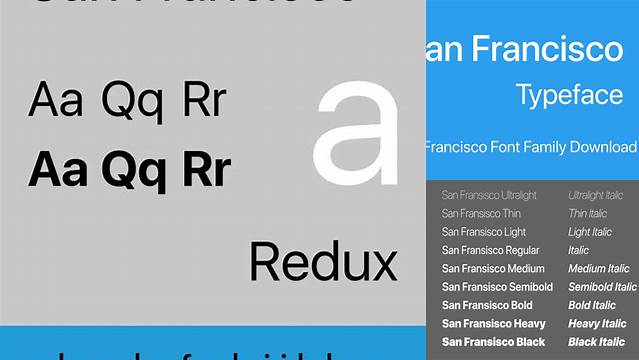
Best Free Fonts Similar To San Francisco
Are you a designer or a typography enthusiast looking for free fonts similar to San Francisco? You've come to the right place! The San Francisco font, known for its clean lines and excellent readability, has become a favorite in the design world. However, it's a system font by Apple, which means it's not freely available for all uses. But don't worry, guys! There are plenty of fantastic free alternatives out there that capture the essence of San Francisco. In this comprehensive guide, we'll dive deep into the best free fonts that offer a similar aesthetic, explore their characteristics, and discuss how to use them effectively in your projects. So, let’s embark on this typographical journey together!
Why Look for Fonts Similar to San Francisco?
Before we jump into the list of free alternatives, let's understand why the San Francisco font is so popular and why finding similar fonts is beneficial. San Francisco's appeal lies in its simplicity and clarity. Its geometric sans-serif design provides a modern and professional look, making it suitable for a wide range of applications, from user interfaces to branding materials. Its excellent readability, especially on digital screens, makes it a go-to choice for many designers.
However, the main reason to seek out fonts similar to San Francisco is its licensing restrictions. As an Apple system font, it's primarily intended for use within the Apple ecosystem. If you're working on projects that extend beyond Apple devices, such as Android apps, websites, or printed materials, you'll need a font with a more permissive license. This is where free alternatives come into play. Finding fonts that share San Francisco's key characteristics – clean lines, geometric shapes, and good readability – allows you to maintain a consistent design aesthetic across different platforms without worrying about licensing issues. Moreover, exploring these alternatives can introduce you to a wider range of typefaces, each with its unique nuances and potential.
The demand for these fonts also stems from the desire to maintain a modern and consistent brand identity across different platforms. If a company uses San Francisco in its iOS app, it's natural to want a font that looks similar for its Android app, website, and marketing materials. This consistency helps reinforce brand recognition and creates a seamless user experience. Furthermore, using free fonts similar to San Francisco can be a cost-effective solution for businesses and individuals on a budget. High-quality fonts can be expensive, and free alternatives offer a way to achieve a professional look without breaking the bank. By carefully selecting the right free font, designers can create visually appealing and effective designs that align with their brand identity and budget.
Key Characteristics of San Francisco Font
To effectively find fonts that are similar to San Francisco, it's essential to understand its key characteristics. This will help you evaluate potential alternatives and ensure they capture the desired aesthetic. San Francisco is a neo-grotesque sans-serif typeface, which means it belongs to a category of fonts known for their simplicity, clarity, and geometric forms. Here are some of the defining features of the San Francisco font:
- Geometric Design: San Francisco is characterized by its geometric shapes, with clean circles, squares, and triangles forming the basis of its letterforms. This gives it a modern and minimalist appearance. The precise geometry contributes to its overall legibility and makes it suitable for both display and body text.
- High Legibility: One of the standout features of San Francisco is its excellent legibility, especially on digital screens. The letterforms are carefully crafted to be easily distinguishable, even at small sizes. This is crucial for user interfaces and other applications where readability is paramount.
- Neutral Appearance: San Francisco has a relatively neutral appearance, which means it doesn't draw too much attention to itself. This neutrality makes it versatile and suitable for a wide range of design projects. It can seamlessly integrate into various designs without overpowering other elements.
- Dynamic Type Features: San Francisco incorporates dynamic type features, which means the spacing and letterforms subtly adjust based on the text size. This enhances readability and ensures a consistent appearance across different scales. This adaptability is particularly beneficial for responsive designs that need to look good on various screen sizes.
- Multiple Weights: San Francisco comes in a range of weights, from thin to bold, providing designers with flexibility in their designs. These different weights allow for visual hierarchy and emphasis, making it easier to create clear and engaging layouts. The availability of multiple weights is essential for creating a well-balanced typographic composition.
Understanding these key characteristics of San Francisco will guide you in your search for free alternatives. You'll be looking for fonts that share these attributes, such as geometric shapes, high legibility, and a neutral appearance. By focusing on these elements, you can find fonts that closely resemble San Francisco and maintain a consistent design aesthetic.
Top Free Fonts Similar to San Francisco
Now, let's get to the exciting part: exploring the top free fonts that capture the essence of San Francisco! There are several excellent options available, each with its unique characteristics and strengths. We'll delve into each font, highlighting its similarities to San Francisco and discussing its best use cases. Here are some of the best free fonts similar to San Francisco:
1. Inter
Inter is a popular and highly regarded free font that closely resembles San Francisco. Designed by Rasmus Andersson, Inter is specifically crafted for user interfaces, making it an excellent choice for digital design projects. It features a tall x-height, which enhances readability, and a clean, geometric design that echoes the aesthetic of San Francisco.
The key features of Inter include its versatility and extensive character set. It supports a wide range of languages and includes various OpenType features, such as contextual alternates and stylistic sets. This makes it highly adaptable to different design needs. Inter's clean and modern appearance makes it suitable for websites, apps, and other digital interfaces where clarity and legibility are crucial. Its geometric shapes and neutral tone ensure it integrates seamlessly into various design styles, from minimalist to more complex layouts. Inter’s multiple weights also provide flexibility in creating visual hierarchy and emphasis within the design. Overall, Inter is an excellent free alternative to San Francisco, especially for UI design.
2. Roboto
Roboto is another fantastic free font that shares many similarities with San Francisco. Developed by Google, Roboto is a widely used font, particularly in the Android operating system. Its mechanical skeleton and largely geometric forms give it a modern and professional look, much like San Francisco.
Roboto stands out due to its dual nature. It has both geometric and humanist qualities, making it versatile for a wide range of applications. The slightly condensed letterforms enhance readability, especially in long blocks of text. Roboto's extensive character set and multiple weights make it suitable for both headlines and body text. It’s an excellent choice for websites, mobile apps, and print materials. Its widespread availability and familiarity also make it a safe and reliable option for maintaining consistency across different platforms. Roboto's neutral and clean design ensures it works well in various contexts, whether you're creating a corporate website or a personal blog. Its balanced aesthetic and excellent legibility make it a strong contender for any project requiring a modern sans-serif typeface.
3. Open Sans
Open Sans, designed by Steve Matteson, is a classic and widely used free font that bears a resemblance to San Francisco. It’s another Google font, known for its open forms and neutral yet friendly appearance. Open Sans is optimized for print, web, and mobile interfaces, making it a versatile choice for various design projects.
The distinctive features of Open Sans include its excellent readability and clean design. Its slightly wider letterforms contribute to its openness and clarity, making it easy to read even at small sizes. Open Sans has a more humanist touch compared to Inter and Roboto, which gives it a friendly and approachable feel. It’s an excellent choice for body text, where readability is paramount. Its neutral design also makes it suitable for headlines and other display uses. Open Sans is available in multiple weights, providing flexibility for creating visual hierarchy. Its open and inviting appearance makes it a popular choice for websites, blogs, and other content-rich platforms. Overall, Open Sans is a reliable and versatile free font that offers a similar aesthetic to San Francisco with a slightly more humanist touch.
4. Lato
Lato, designed by Łukasz Dziedzic, is a sleek and modern sans-serif font that shares similarities with San Francisco. The name “Lato” means “Summer” in Polish, and the font embodies a feeling of warmth and approachability. Lato’s semi-rounded details give it a friendly character, while its strong structure ensures readability.
One of the key strengths of Lato is its versatility. It works well in both display and body text, making it suitable for a wide range of design projects. Lato’s clean and modern design makes it an excellent choice for websites, branding materials, and print publications. Its semi-rounded letterforms add a touch of warmth and personality, setting it apart from more strictly geometric fonts. Lato is available in a variety of weights, providing flexibility for creating visual hierarchy and emphasis. Its well-balanced design and excellent legibility make it a popular choice for designers looking for a modern sans-serif typeface with a friendly feel. Lato's subtle details and inviting appearance make it a standout option for projects that need to convey a sense of warmth and approachability.
5. Montserrat
Montserrat is a geometric sans-serif typeface designed by Julieta Ulanovsky. Inspired by the urban typography of Buenos Aires, Argentina, Montserrat captures the spirit of the early twentieth century. Its clean and geometric forms give it a modern yet classic feel, making it a strong contender for a San Francisco alternative.
The distinctive features of Montserrat include its strong geometric structure and excellent legibility. Its letterforms are carefully crafted to be clear and distinct, even at small sizes. Montserrat’s vintage-inspired design adds a touch of character and personality, making it suitable for a variety of design projects. It works well in headlines, logos, and other display uses, but it’s also legible enough for body text. Montserrat is available in multiple weights, providing flexibility for creating visual hierarchy. Its stylish and versatile design makes it a popular choice for websites, branding materials, and print publications. Montserrat's unique blend of modern and classic elements makes it a standout option for projects that need a touch of sophistication and personality.
How to Choose the Right Font
Selecting the right font is crucial for any design project. The typeface you choose can significantly impact the overall look and feel of your design, as well as its readability and effectiveness. When choosing a font similar to San Francisco, consider the following factors:
- Project Requirements: Start by understanding the specific requirements of your project. What type of design are you working on? Is it a website, a mobile app, a printed brochure, or something else? The type of project will influence the font choices that are most suitable. For example, a website might require a font that is optimized for screen readability, while a printed brochure might allow for more decorative options.
- Readability: Readability is a paramount consideration, especially for body text. Choose a font that is easy to read, even at small sizes. Look for fonts with clear letterforms, adequate spacing, and a good x-height. Test the font in different sizes and contexts to ensure it remains legible. If your project involves a lot of text, prioritizing readability will enhance the user experience and make your content more accessible.
- Design Style: Consider the overall design style of your project. Is it modern, minimalist, classic, or something else? The font should complement and enhance the design style. If you're aiming for a modern and clean aesthetic, a geometric sans-serif font like Inter or Roboto might be a good choice. If you want a touch of warmth and personality, Lato or Open Sans could be more suitable. Ensure the font aligns with the visual tone and message you're trying to convey.
- Font Pairing: Think about how the font will pair with other fonts in your design. Font pairing is the art of combining different typefaces to create a harmonious and visually appealing composition. Generally, it’s best to use a limited number of fonts (two or three) to avoid visual clutter. Consider pairing a sans-serif font with a serif font, or using different weights of the same font family. Experiment with different combinations to find what works best for your project.
- Licensing: Always check the licensing terms of the font before using it in your project. While the fonts we've discussed in this guide are free, they may have specific licensing requirements. Some fonts may be free for personal use but require a commercial license for business projects. Make sure you understand the terms and conditions to avoid any copyright issues. Respecting font licenses ensures you're using the typeface legally and ethically.
By considering these factors, you can make an informed decision and choose the right font that will elevate your design project. Remember, the font is a crucial element of your design, so take the time to select one that aligns with your goals and enhances your message.
Tips for Using Free Fonts Effectively
Using free fonts can be a great way to save money and access a wide variety of typefaces. However, it’s essential to use them effectively to ensure your designs look professional and polished. Here are some tips for using free fonts effectively:
- Quality Matters: Not all free fonts are created equal. Some free fonts may be poorly designed or lack essential features. Stick to reputable sources and choose fonts that have been professionally designed and tested. Look for fonts that have a complete character set, multiple weights, and OpenType features. A high-quality free font will be a valuable asset to your design toolkit.
- Test Thoroughly: Before committing to a free font, test it thoroughly in different contexts. Try it in headlines, body text, and other design elements. Check its legibility at various sizes and on different devices. Ensure it works well with your color palette and other design elements. Thorough testing will help you identify any potential issues and ensure the font meets your project’s needs.
- Consider Font Pairing: As mentioned earlier, font pairing is crucial for creating a harmonious design. When using free fonts, pay attention to how they pair with other typefaces. Experiment with different combinations to find what works best for your project. Consider using a free font for headlines and another for body text, or using different weights of the same font family. A well-paired font combination can elevate your design and enhance its visual appeal.
- Use Sparingly: While it can be tempting to use multiple free fonts in a single project, it’s generally best to use them sparingly. Too many fonts can create visual clutter and detract from the overall design. Stick to a limited number of typefaces (two or three) and use them consistently throughout your project. Consistency in font usage helps create a cohesive and professional look.
- Support the Designers: If you find a free font that you love and use frequently, consider supporting the designer. Many font designers offer donation options or sell commercial fonts. By supporting their work, you help ensure they can continue to create high-quality typefaces. Showing appreciation for the designers behind free fonts is a great way to give back to the design community.
By following these tips, you can use free fonts effectively and create stunning designs that are both visually appealing and professional. Remember, the key is to choose high-quality fonts, test them thoroughly, and use them strategically within your overall design.
Finding free fonts similar to San Francisco is entirely possible with the wealth of excellent options available today. Fonts like Inter, Roboto, Open Sans, Lato, and Montserrat offer similar aesthetics and functionalities, making them suitable for a wide range of design projects. By understanding the key characteristics of San Francisco and considering factors like readability, design style, and font pairing, you can select the perfect typeface for your needs. Remember to test your fonts thoroughly and use them strategically to create visually appealing and effective designs.